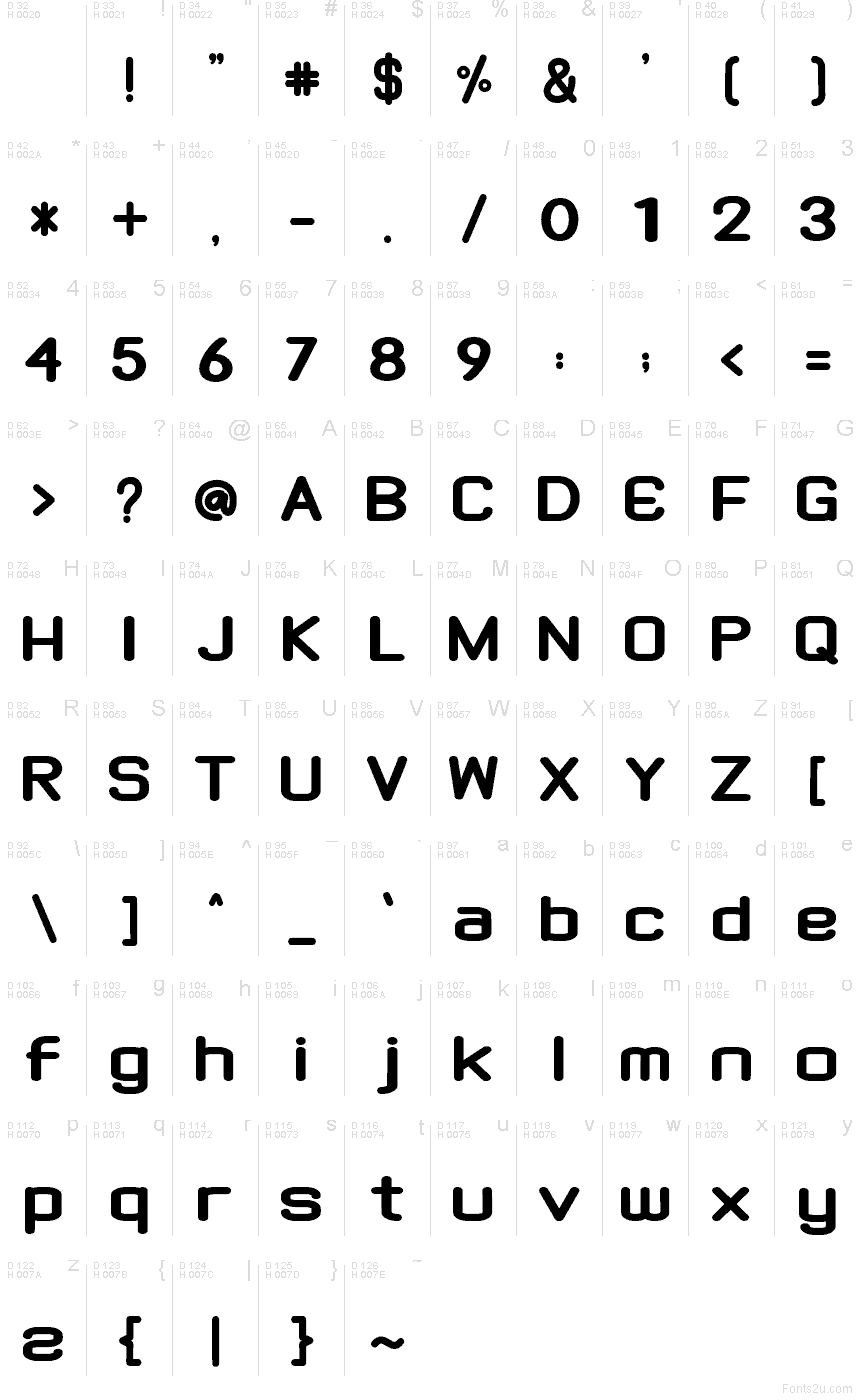
Sonic Saber by Letterafa is a free rounded techno display font defined by broad, low-set shapes and smooth corners that make the lettering feel compact and controlled. The repeated mix of flat stretches, soft bends, and squared inner spaces gives it a sleek screen-ready rhythm instead of a neutral geometric look.
That compact silhouette makes sense on gaming logos, app headers, DJ flyers, streaming overlays, and poster titles where short words need a crisp, synthetic presence. It also lends itself to product packaging and tech branding, since the softened edges keep the font from feeling cold while the wide curves still read as deliberately engineered.